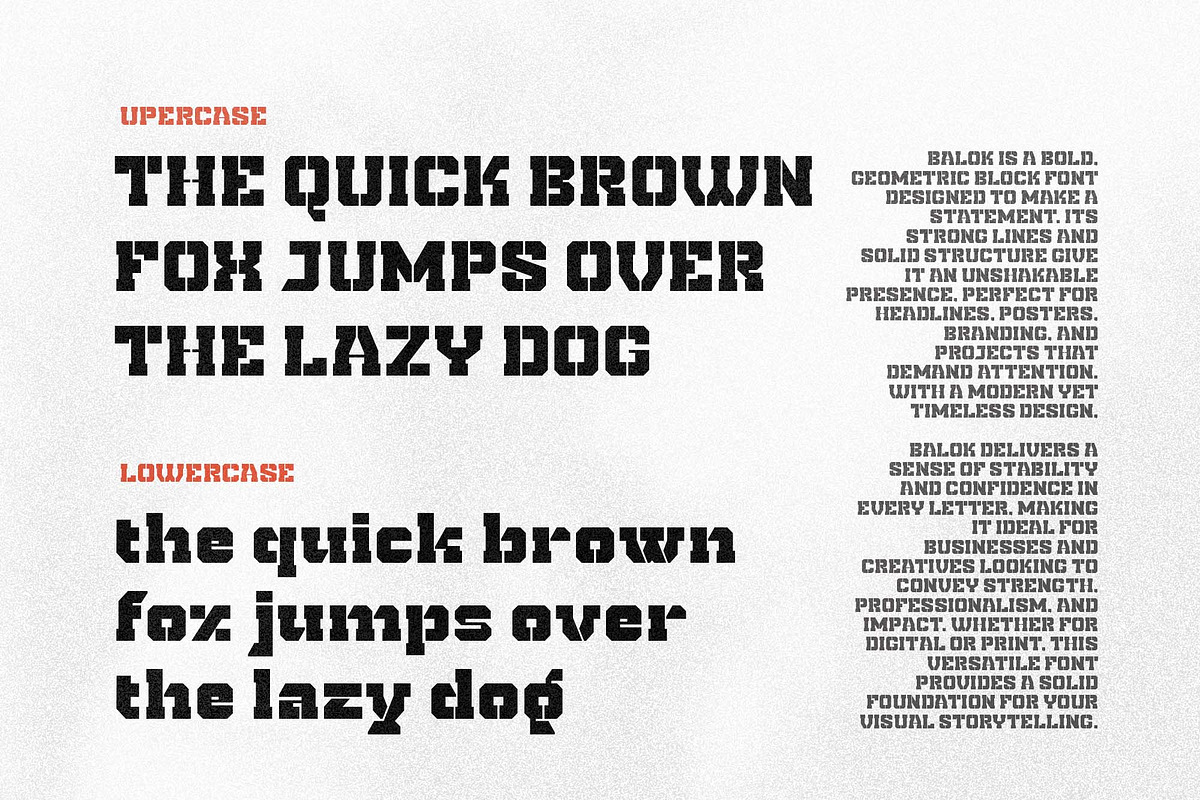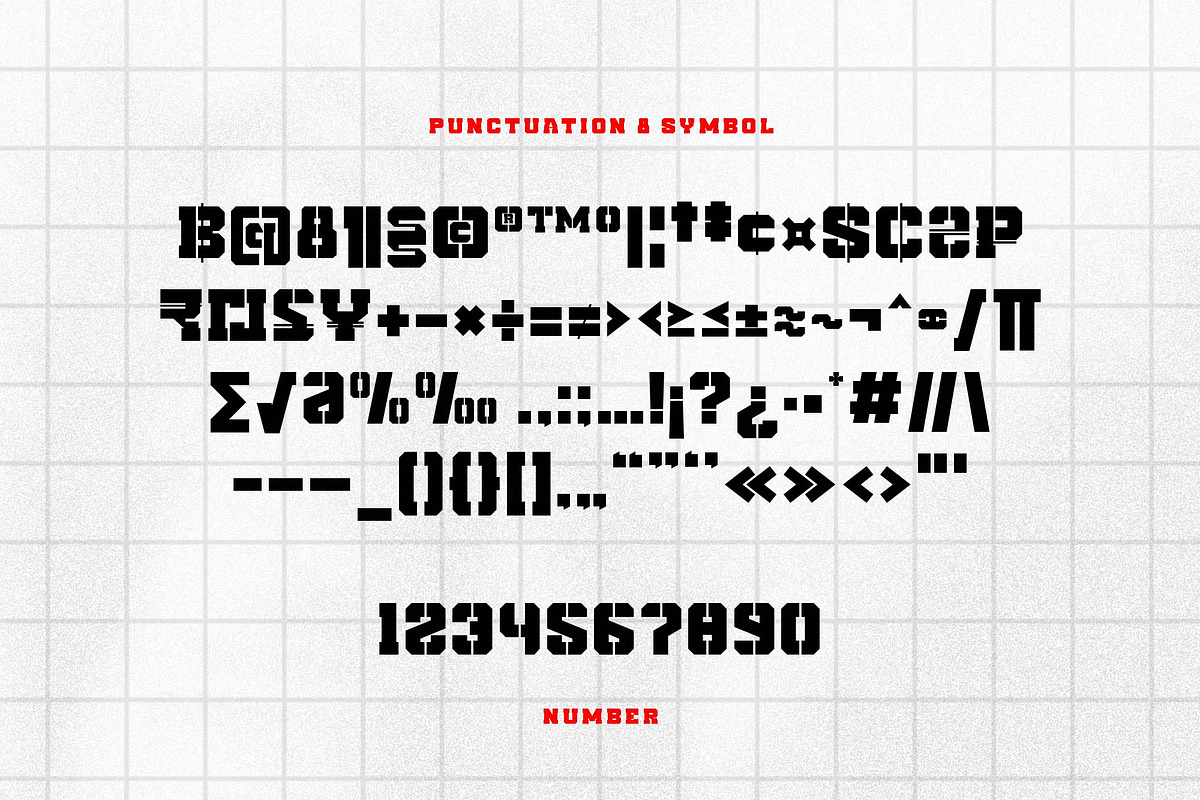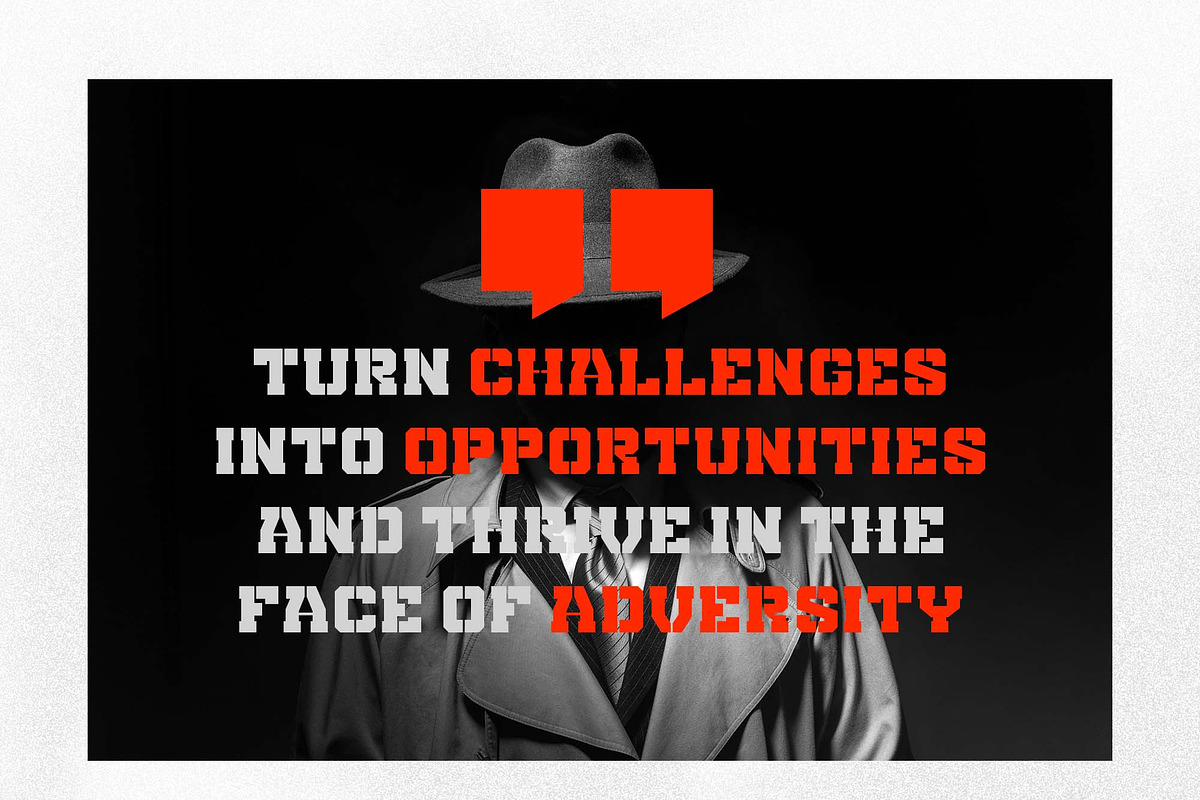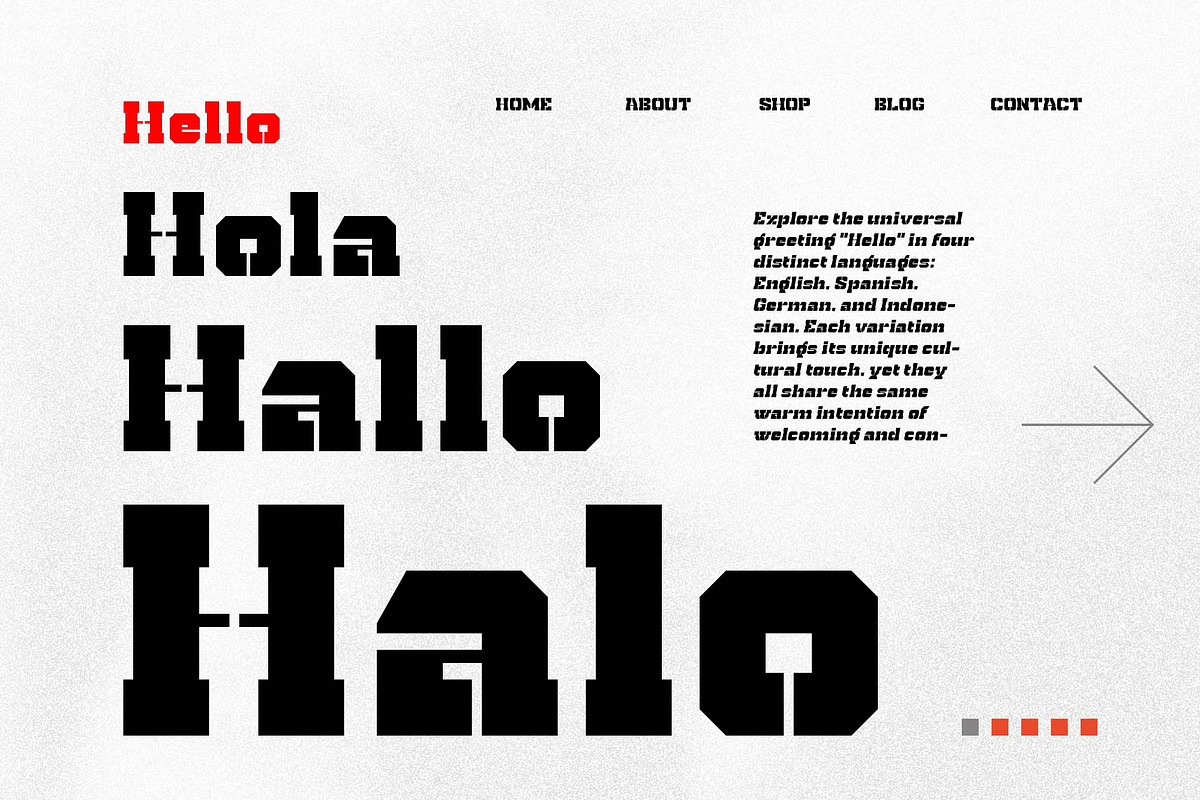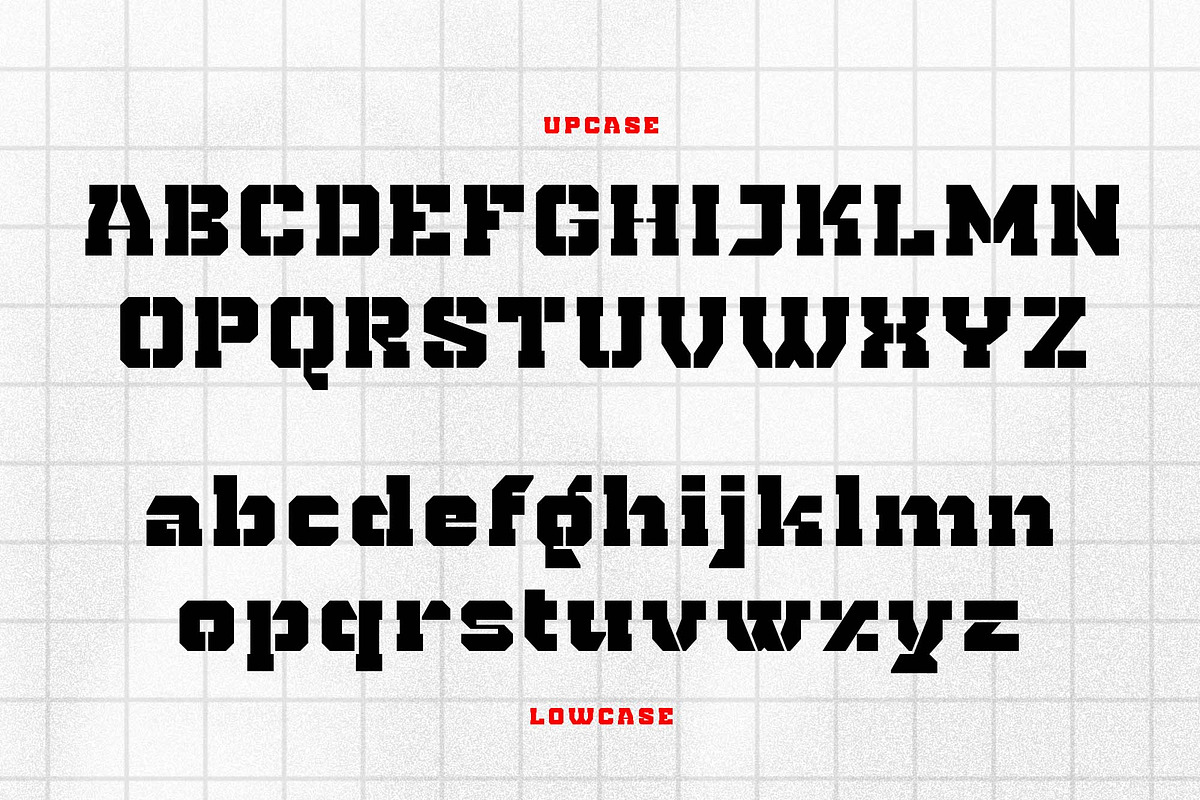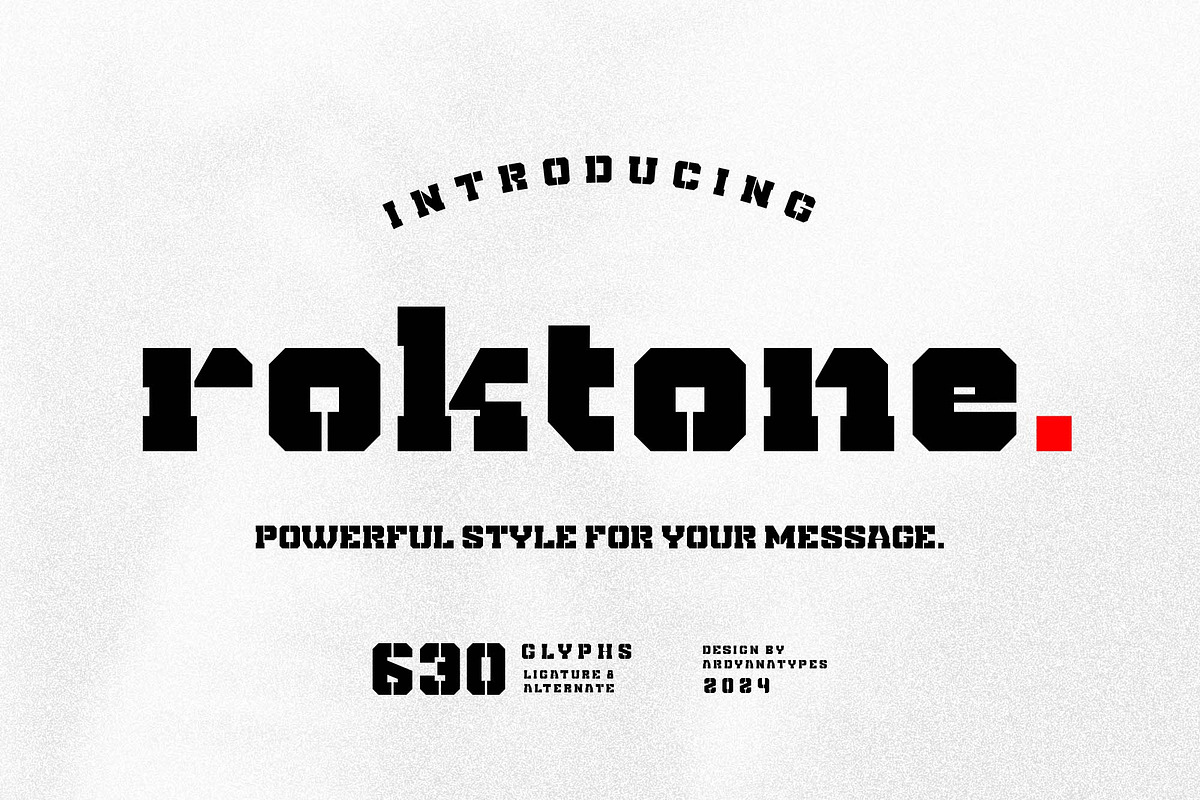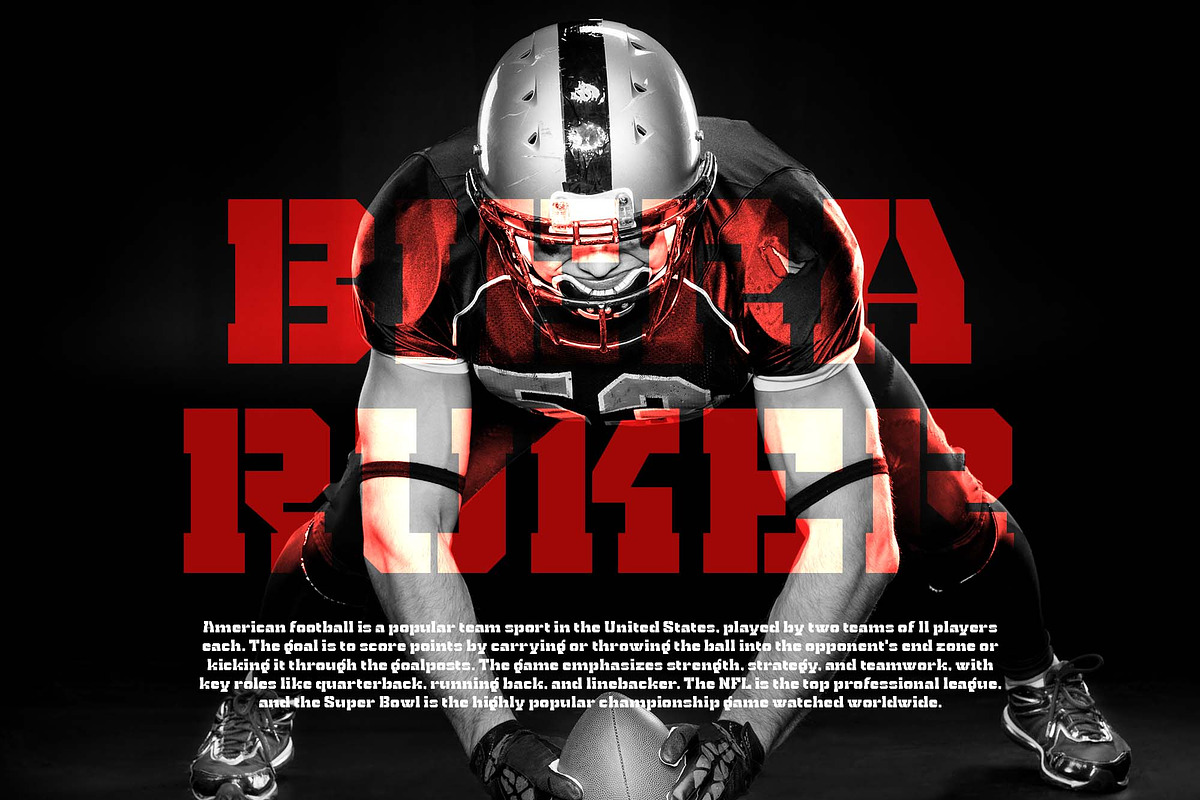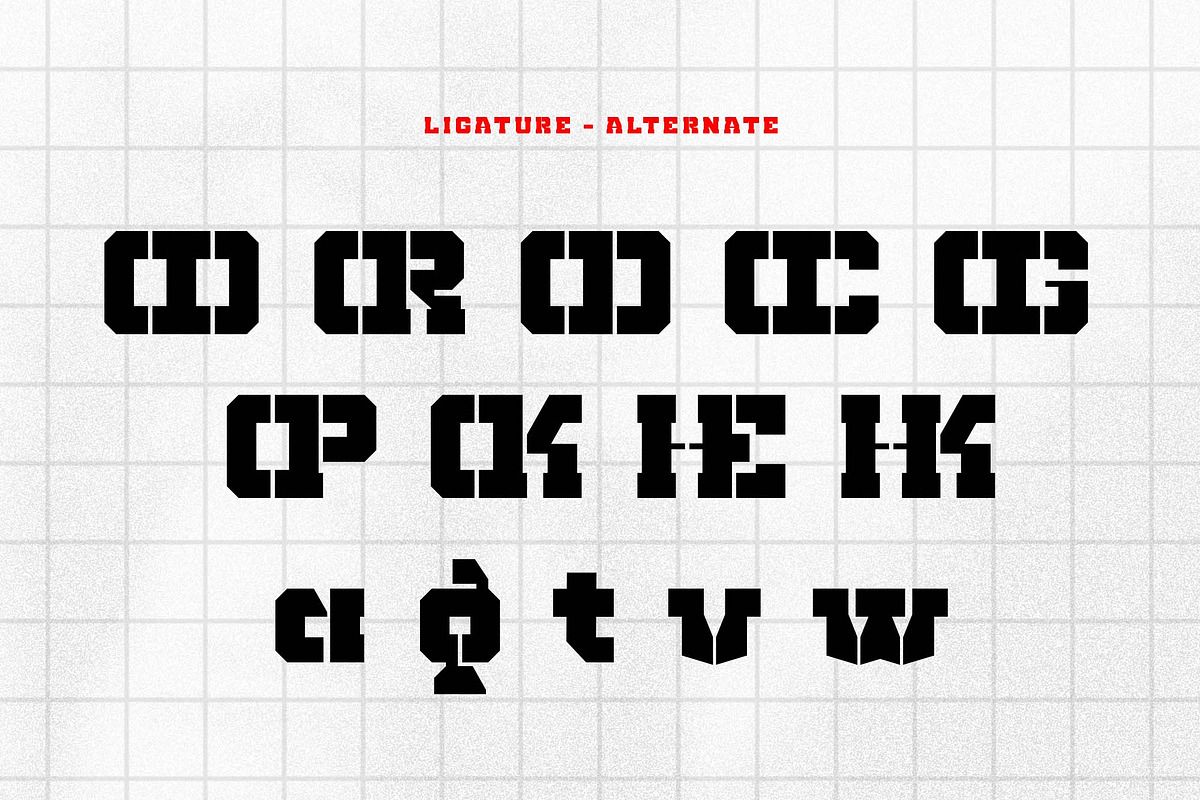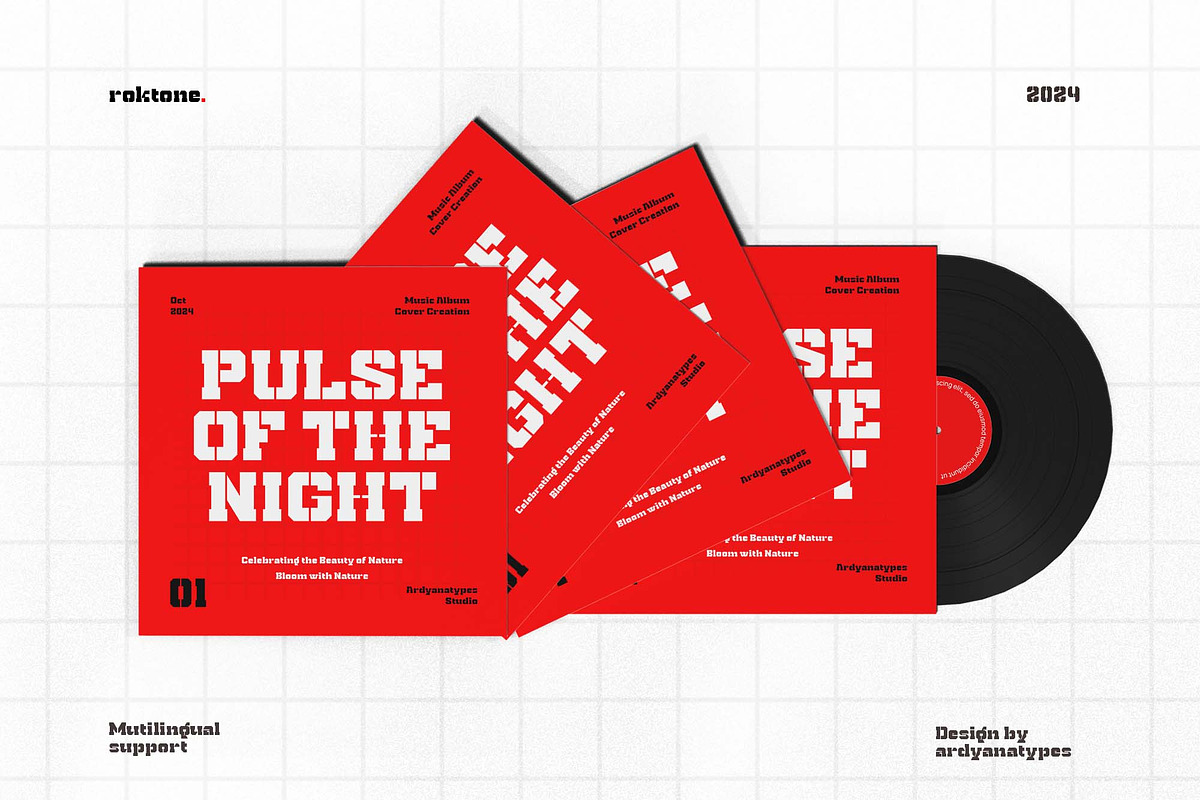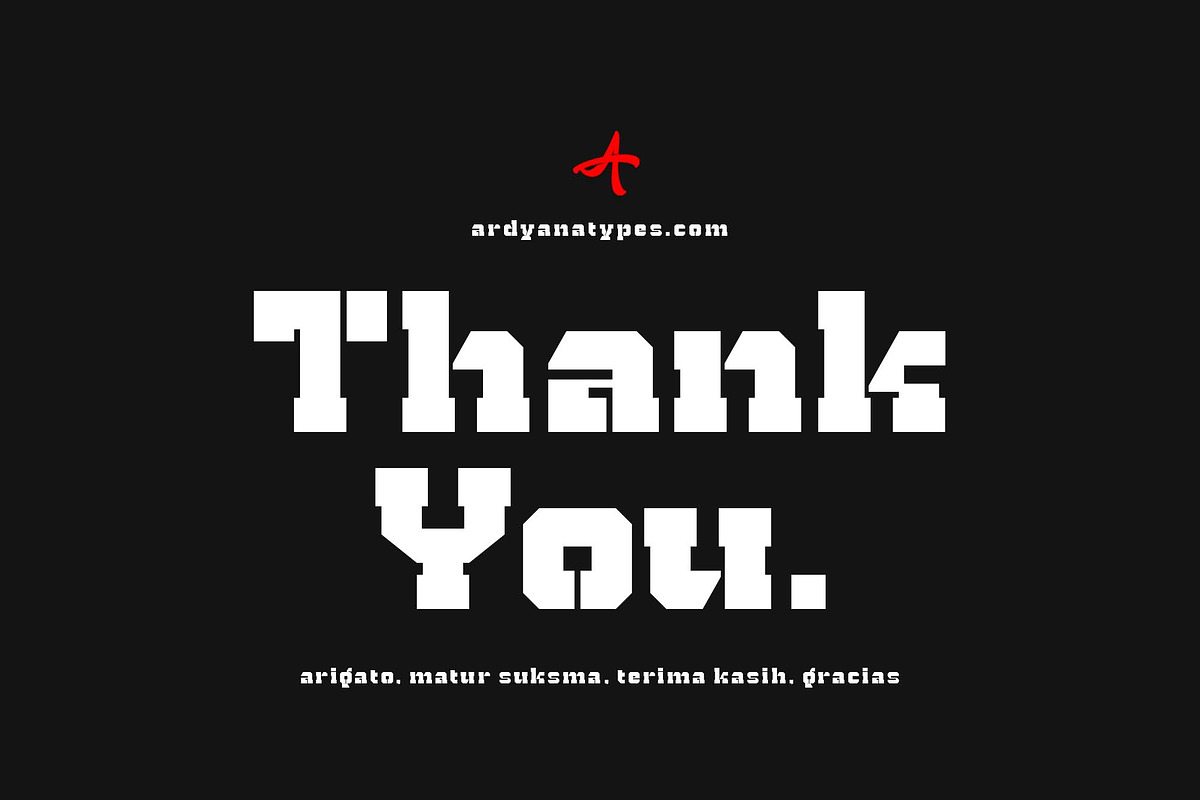
ROKTONE
Roktone is a display block typeface meticulously crafted and inspired by various modern styles to deliver an optimal combination of aesthetics and functionality. With its bold and strong character, Roktone remains flexible enough to be applied across different design styles. Featuring advanced OpenType capabilities, Roktone offers a variety of customizable characters, allowing designers to fully express their creativity.
Roktone is perfect for a wide range of design projects, including posters, movie titles, book covers, branding materials, and large-scale projects. Its adaptable form makes it an ideal choice for conveying strong and impactful messages. Additionally, with multilingual support, Roktone can be used across different countries, extending your visual communication to a global audience.
This font is here to give a professional and modern touch to every design, making it an essential element for enhancing the visual identity you aim for.
A – Z Character Set
a – z Characters set
Numerals & Punctuations
Ligatures & Alternates